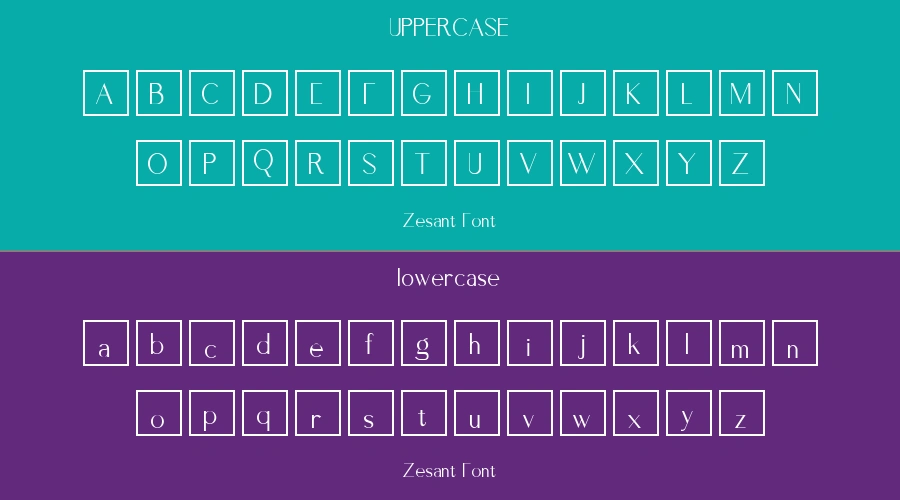
About Zesant Font
When typographic excellence matters most, Zesant Font delivers through its thoughtful blend of clean corners and legibility. Specially crafted for social media content, it offers the clarity and design heritage required for sophisticated design work. Every detail serves a purpose.
The character set showcases thoughtful details like pen-inspired details alongside functional authentic details. This proves especially valuable in business cards, where small text clarity directly influences results. Particular attention was paid to stem weight and user perception during development.